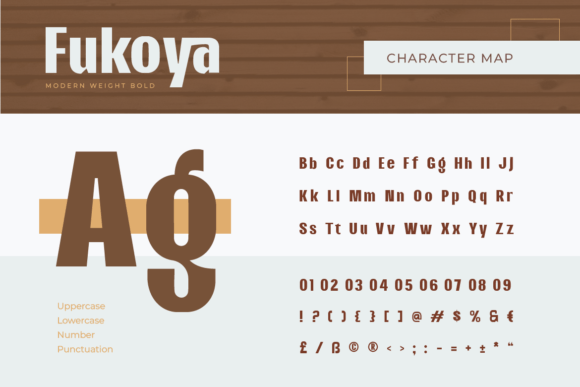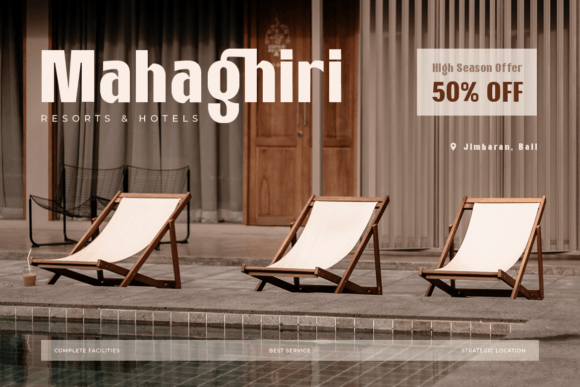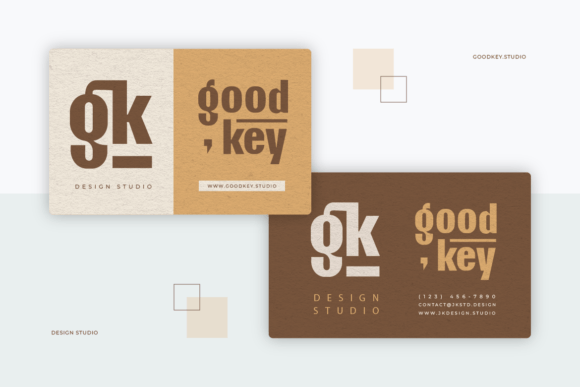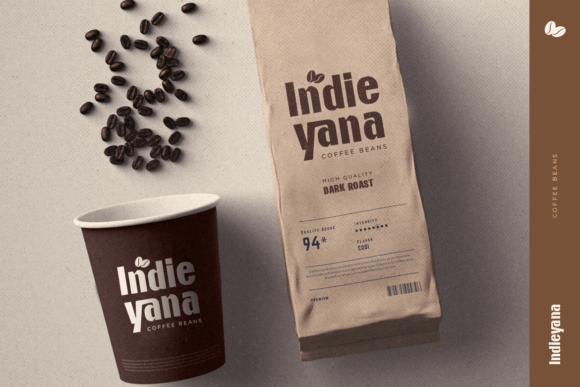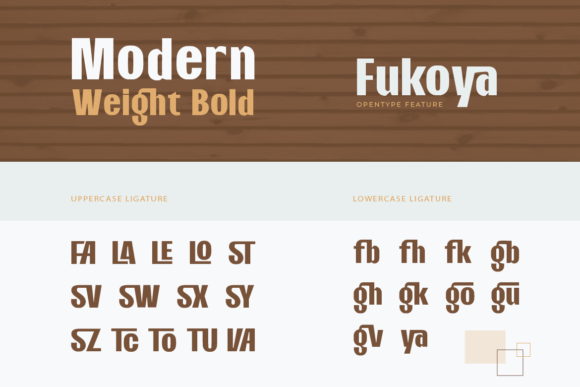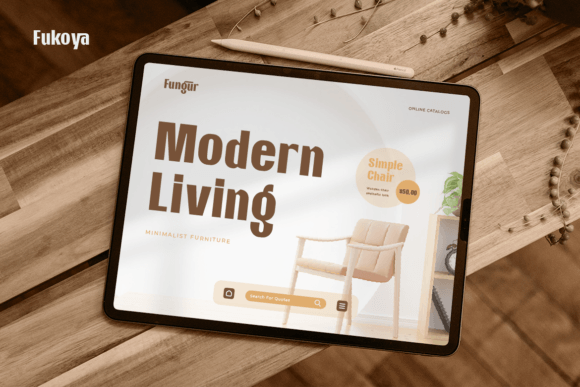
Fukoya Font: The Ultimate Sans Serif Font for Designers and Crafters
In the world of typography, fonts play a crucial role in conveying the tone and personality of a brand, product, or creative project. With thousands of fonts available, finding the perfect one can be overwhelming, especially for designers and crafters who are looking for something unique and impactful. This is where Fukoya Font comes in – a weight-bold sans serif font that exudes a soft and confident impression, making it perfect for a wide range of applications.
What is Fukoya Font?
Fukoya Font is a modern sans serif font designed to make a statement. Its bold weight and clean lines give it a confident and sturdy feel, while its soft edges add a touch of warmth and approachability. This font is perfect for designers and crafters who want to create a strong visual identity for their brand, product, or project.
Key Features of Fukoya Font
• Weight-Bold Design: Fukoya Font boasts a bold weight that commands attention and makes a lasting impression.
• Soft and Confident Impression: The font’s soft edges and clean lines give it a unique personality that is both approachable and confident.
• Versatile: Fukoya Font is perfect for a wide range of applications, including logo design, social media, movie titles, book titles, short text, and even long text letters.
• Easy to Read: The font’s clear and clean design makes it easy to read, even at small sizes.
Use Cases for Fukoya Font
Fukoya Font is an incredibly versatile font that can be used in a variety of contexts. Here are some of the most popular use cases:
• Logo Design: Fukoya Font is perfect for creating bold and memorable logos that make a lasting impression.
• Social Media: The font’s clean design and bold weight make it perfect for social media graphics, including Facebook posts, Twitter headers, and Instagram stories.
• Movie Titles: Fukoya Font’s confident and sturdy feel makes it perfect for movie titles, adding a touch of sophistication and glamour to any film.
• Book Titles: The font’s clear and easy-to-read design makes it perfect for book titles, adding a touch of elegance and sophistication to any publication.
• Short Text and Long Text Letters: Fukoya Font is perfect for both short text and long text letters, making it a versatile font for any writing project.
Why Choose Fukoya Font?
With so many fonts available, why choose Fukoya Font? Here are just a few reasons why designers and crafters love this font:
• Unique Personality: Fukoya Font has a unique personality that sets it apart from other fonts.
• High-Quality Design: The font is designed with high-quality craftsmanship, ensuring that it looks great in any context.
• Versatile: The font’s versatility makes it perfect for a wide range of applications.
Fukoya Font is a powerful and versatile font that is perfect for designers and crafters who want to make a statement. Its unique personality, high-quality design, and ease of use make it a top choice for a wide range of applications. Whether you’re creating a logo, social media graphics, movie titles, book titles, or short text and long text letters, Fukoya Font is the perfect choice. So why wait? Download Fukoya Font today and take your designs to the next level!